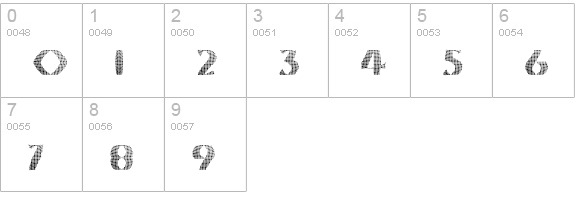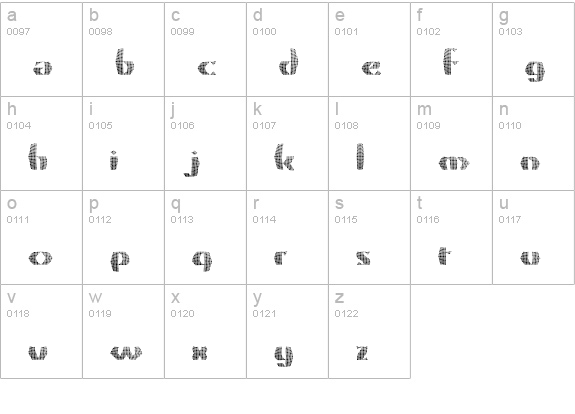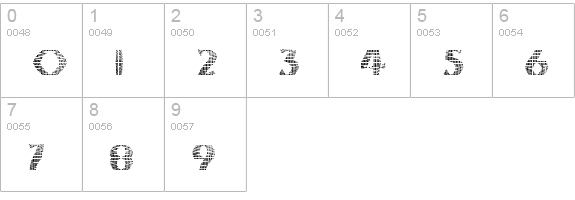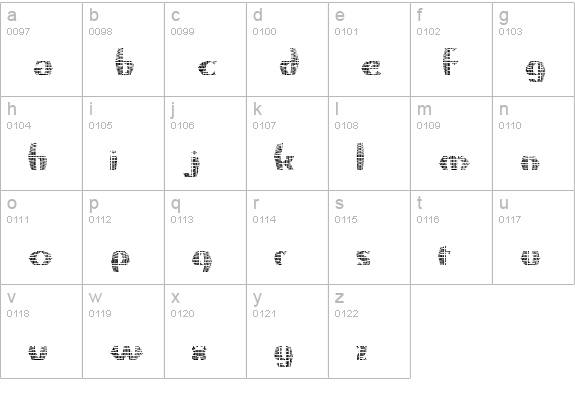
GrossNet Font Details
GrossNet font is a modern and sleek typeface that seamlessly blends sophistication with a touch of playfulness. Its clean lines and striking design make it perfect for a wide range of projects, from branding to editorial design. The versatility of GrossNet font allows it to work effortlessly across various platforms, ensuring a polished and professional appearance. What sets GrossNet font apart is not only its striking aesthetics but also its availability as a free download at FontsMarket.com. This means that designers and creatives can easily access this high-quality font without any cost, making it a valuable addition to any font library. Whether you're working on a logo, website, or publication, GrossNet font offers a timeless and elegant solution to elevate your designs. With its bold yet refined presence, GrossNet font is sure to make a statement and leave a lasting impression on any project. Download it for free today and discover the endless possibilities it brings to your creative endeavors.